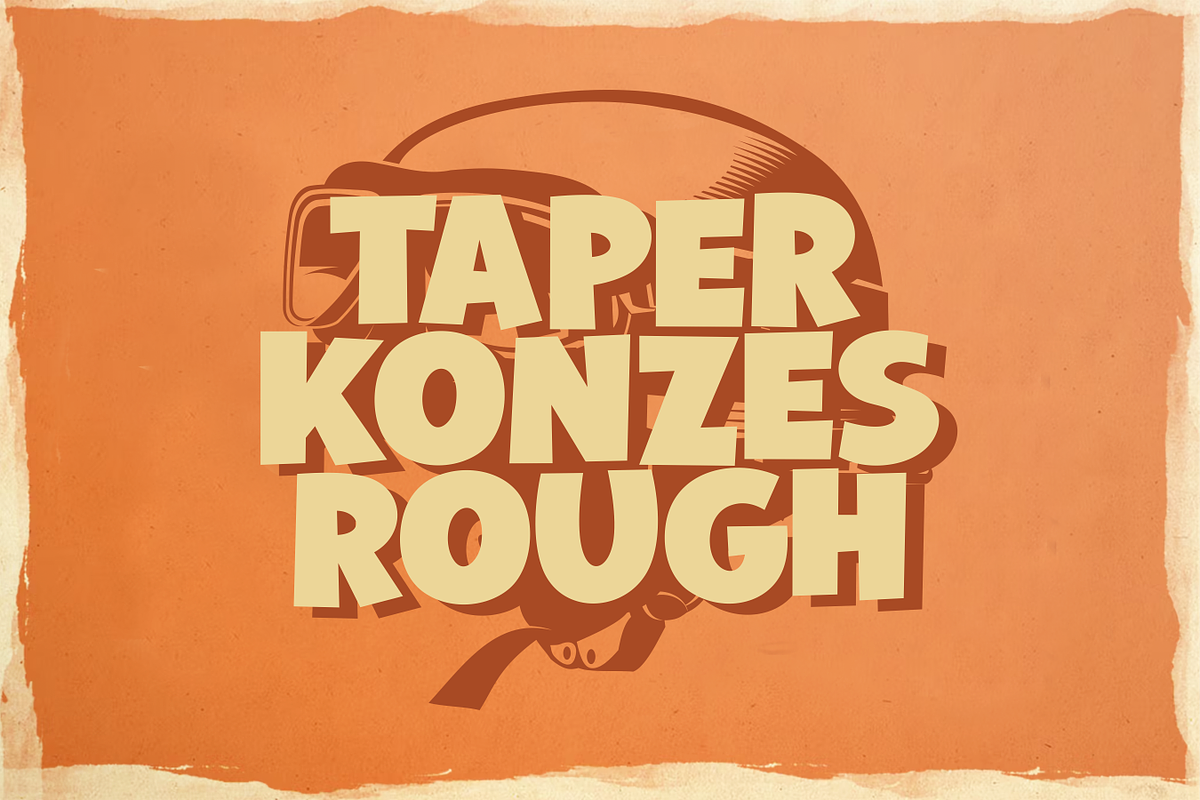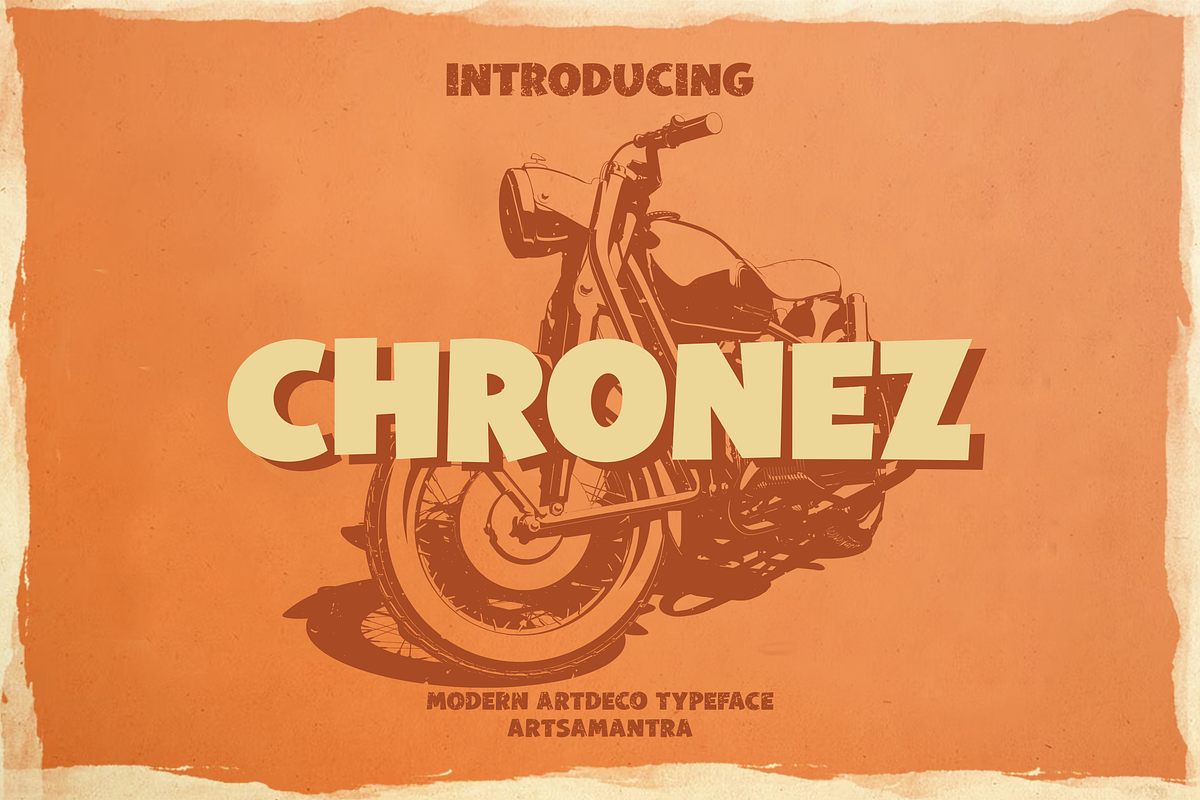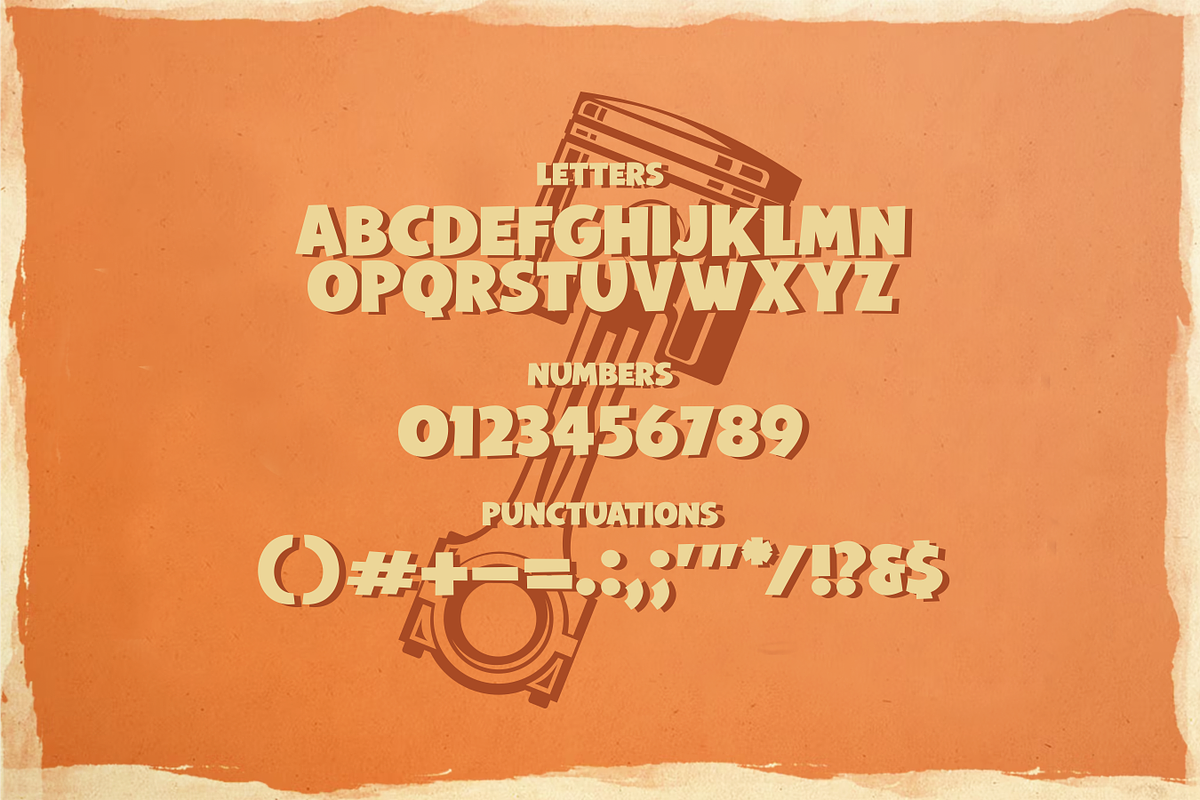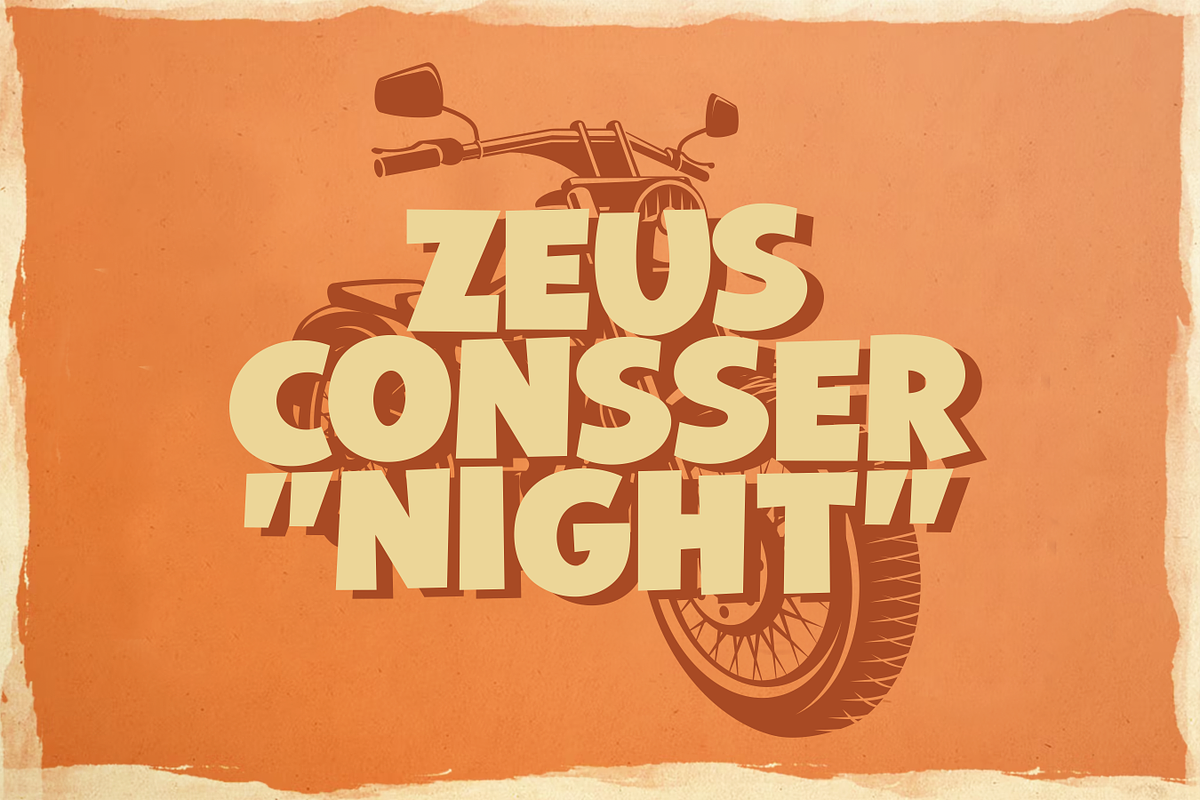
Chronez - Artdeco Typeface
Chronez is a unique font and also has a vintage look font, it comes with strong all-caps making it look different. This font is inspired by the old style then brings it back with a modern and fresh touch, it is dynamic and elegant. Use it for awesome designs, branding, titles, comics, posters, brochures, food, album covers, logos and more.